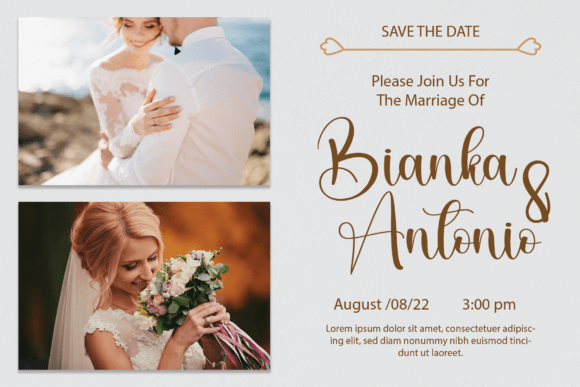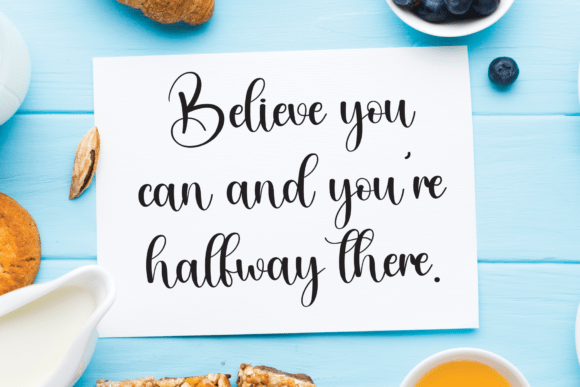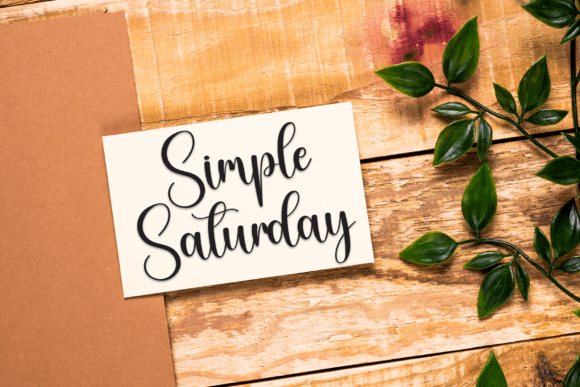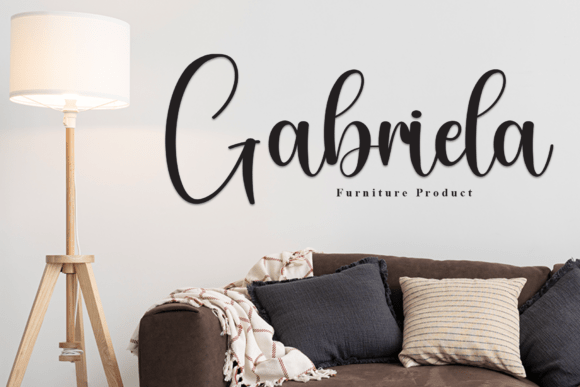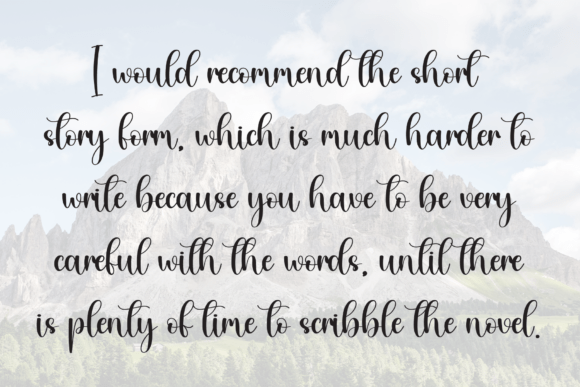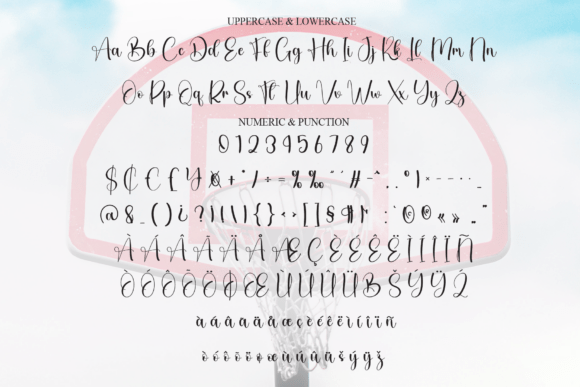
Slam Dunk for Your Designs: Introducing Basketball Font
Have you ever found yourself stuck in a creative rut, searching for the perfect font to elevate your project? I know I have. That’s when I stumbled upon Basketball Font – a stunning handwritten script that’s been a game-changer for me. Its unique blend of elegance and modern flair has the power to transform any design, adding a touch of sophistication and warmth that’s hard to resist.
Basketball Font is a versatile typeface that’s perfect for branding, invitations, and social media. Its flowing strokes and organic curves bring a personal, refined touch to any project, making it an ideal choice for designers looking to add a unique twist to their work. With Basketball Font, you can create designs that are both stylish and approachable, making it a valuable addition to any designer’s toolkit.
Basketball Font Key Features
- Unique Characteristics: The font features a bold, dynamic design that captures the energy and excitement of basketball. Its unique letterforms and ligatures add a touch of personality to any project.
- Legibility: Despite its bold design, Basketball Font is highly legible, making it suitable for use in a variety of contexts, from headlines to body text.
Basketball Font Review
At first glance, Basketball Font seems like a fun, energetic font that could add some excitement to any design project. ✨ The font’s unique, handwritten style is reminiscent of a sports jersey or a vintage basketball program. The bold lines and playful curves make it perfect for creating a lively atmosphere, whether it’s for a sports-themed website or a social media campaign.
One of the standout features of Basketball Font is its versatility. ✨ It can be used for a wide range of applications, from headings and titles to body text and even logos. The font also comes in a variety of weights, making it easy to customize to your needs.
- ⚠️ Limited character set: Basketball Font has a relatively small character set, which can make it difficult to use for longer blocks of text.
- ⚠️ Limited language support: The font is primarily designed for English and may not be suitable for languages that require more complex characters.
- ⚠️ Not ideal for small text: Due to its bold and playful nature, Basketball Font may not be the best choice for small text or fine details.
Overall, Basketball Font is a fun and energetic font that can add a lot of excitement to your designs. While it has some limitations, it’s perfect for projects that require a bold and playful feel. Just be sure to use it sparingly and in the right context to get the most out of it.
Tips for Getting the Most Out of the Basketball Font
Some tips for getting the most out of the Basketball Font include:
– Using it in conjunction with other bold and playful fonts to create a fun and energetic design.